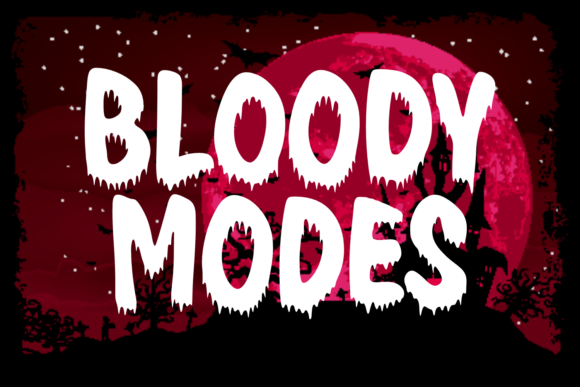
The Spooky Season is Here: Meet Bloody Modes Font
As a designer, I’ve had my fair share of late nights and stressful deadlines. But one project that still haunts me (pun intended) was a Halloween-themed invitation I designed a few years ago. I was determined to create something spooky and fun, but I was struggling to find the perfect font. That’s when I wished I had Bloody Modes Font, a bold and spooky display font that’s perfect for adding a touch of horror to your designs.
First Impressions: A Spooky yet Elegant Font
Bloody Modes Font is a bold, eye-catching font that’s sure to make your Halloween-themed designs stand out. Its unique blend of spooky and elegant elements makes it perfect for a variety of creative projects, from invitations and posters to social media graphics and more.
- ✨ Unique and eye-catching design: Bloody Modes Font is unlike any other font I’ve seen. Its bold, spooky letters are sure to grab attention and add a touch of horror to your designs.
- ✅ Easy to read: Despite its bold and spooky design, Bloody Modes Font is surprisingly easy to read, even in smaller sizes.
- 🎃 Perfect for Halloween-themed designs: This font is specifically designed with Halloween in mind, making it perfect for invitations, posters, and other spooky designs.
While Bloody Modes Font is an amazing font, it’s not perfect. Here are a few things to keep in mind:
- 🤔 Limited use cases: While Bloody Modes Font is perfect for Halloween-themed designs, it may not be the best choice for other types of projects. Its bold, spooky design may not fit with more formal or professional designs.
- ⚠️ May not work well in small sizes: While Bloody Modes Font is easy to read in larger sizes, it may not work as well in smaller sizes. Be sure to test it out in different sizes to ensure it works for your design.
The Backstory Behind Bloody Modes Font
Bloody Modes Font was designed by a team of creatives who wanted to create a font that would capture the spooky and eerie atmosphere of Halloween. The font’s unique design is inspired by old-fashioned horror movies and haunted houses. The designers wanted to create a font that would be perfect for adding a touch of horror to designs, while still being easy to read and elegant.
Q: What is Bloody Modes Font?
A: Bloody Modes Font is a bold and spooky display font that’s perfect for adding a touch of horror to your designs.